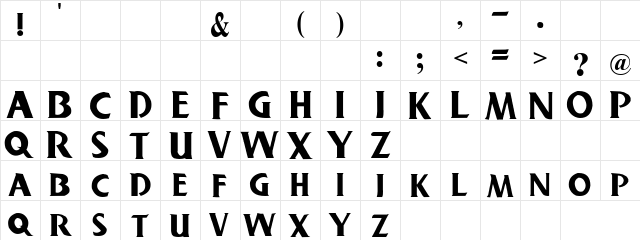
Anoov Cad Regular
Design Context for Anoov Cad Typeface
Anoov Cad is a composed and adaptable typeface that performs quietly and consistently across a wide range of design contexts.
Pro Tip: Use Anoov Cad in both headline and body roles to test its range before committing to a single application.